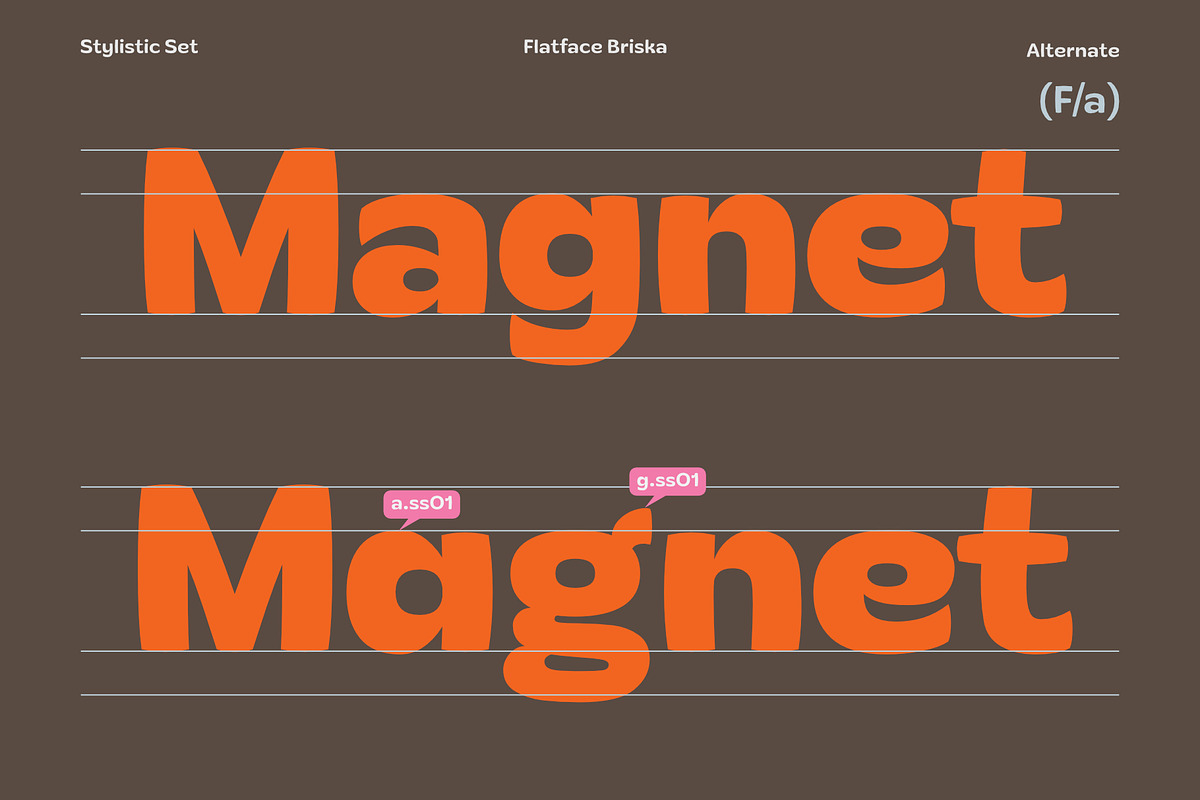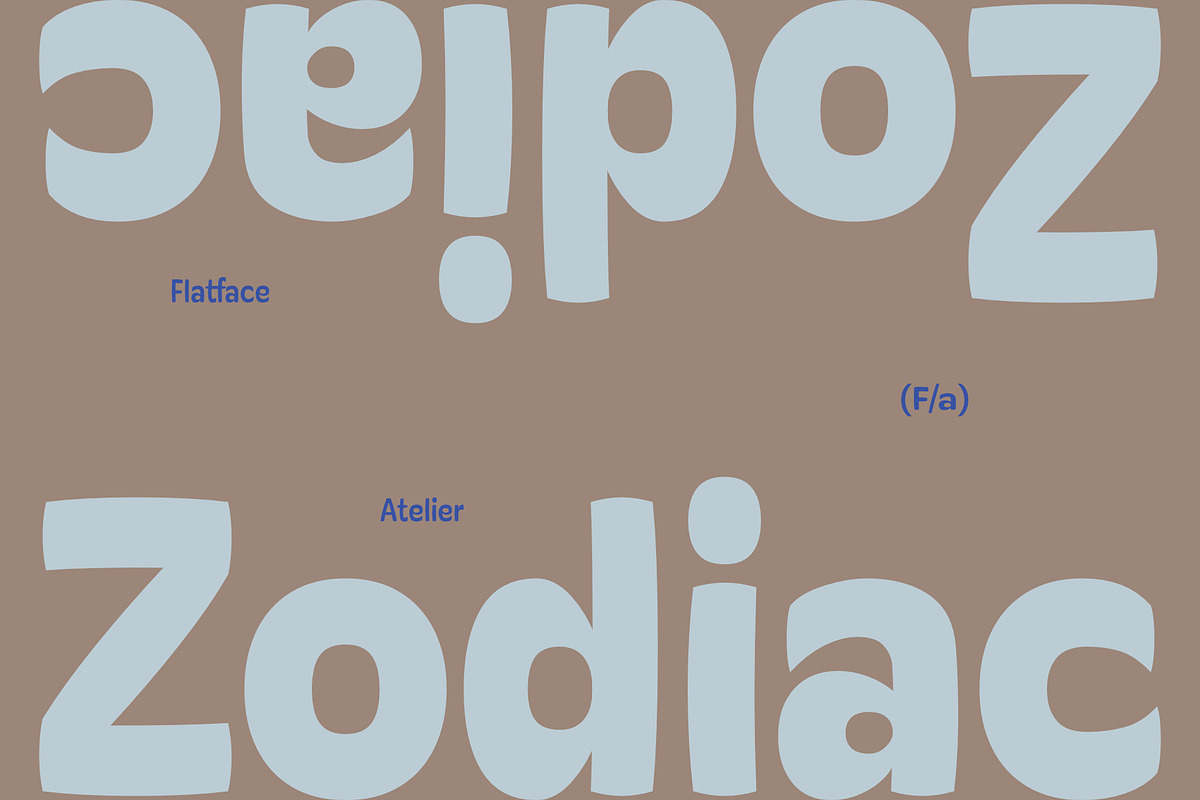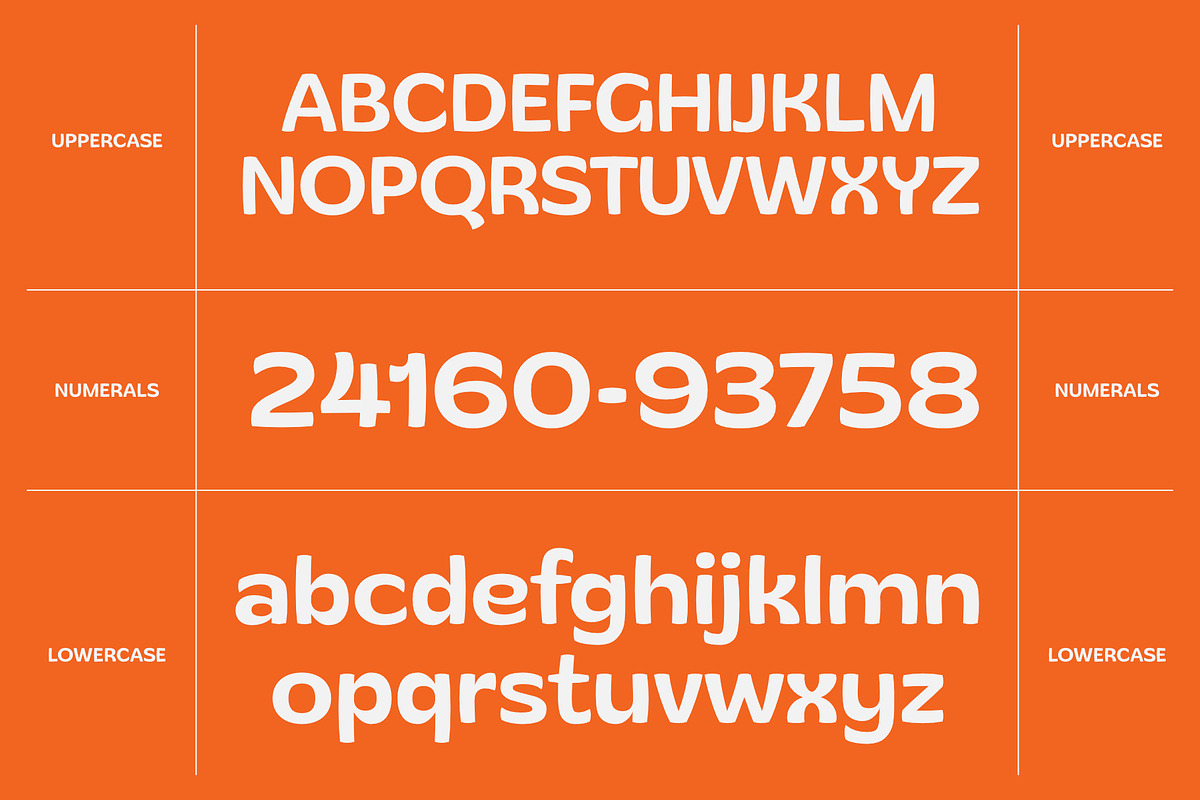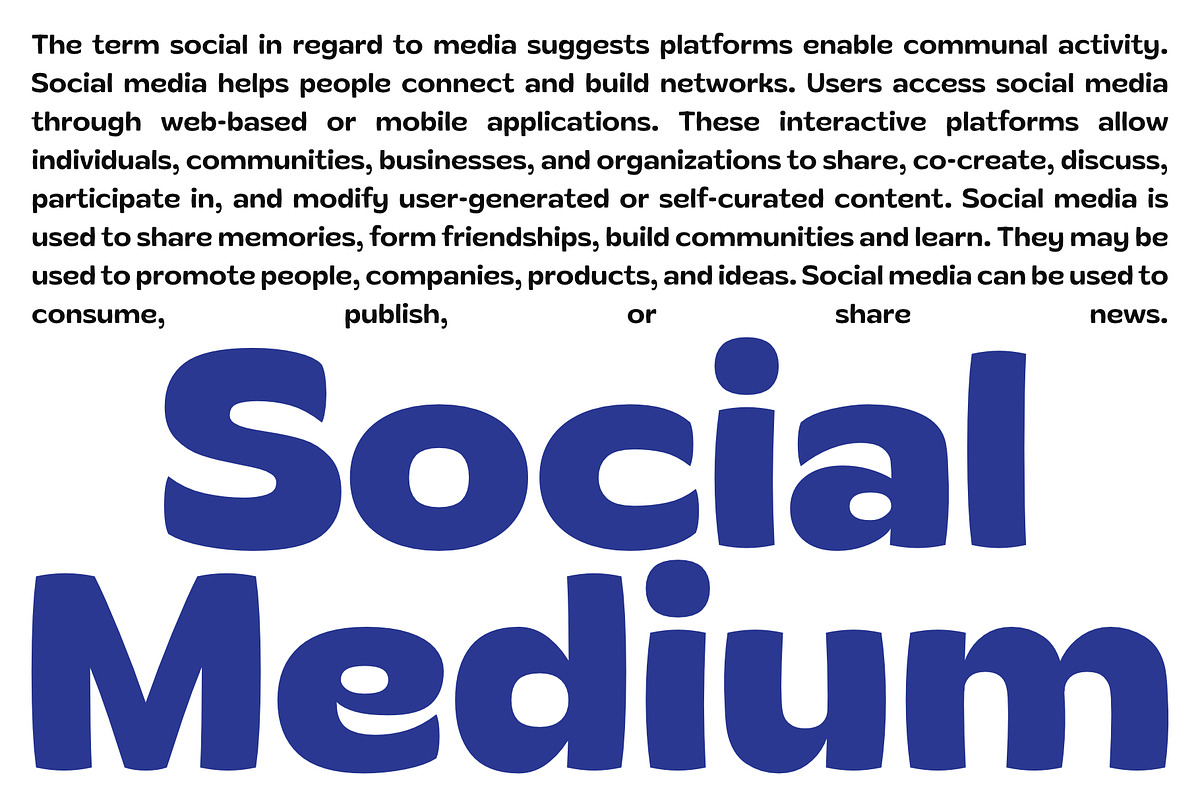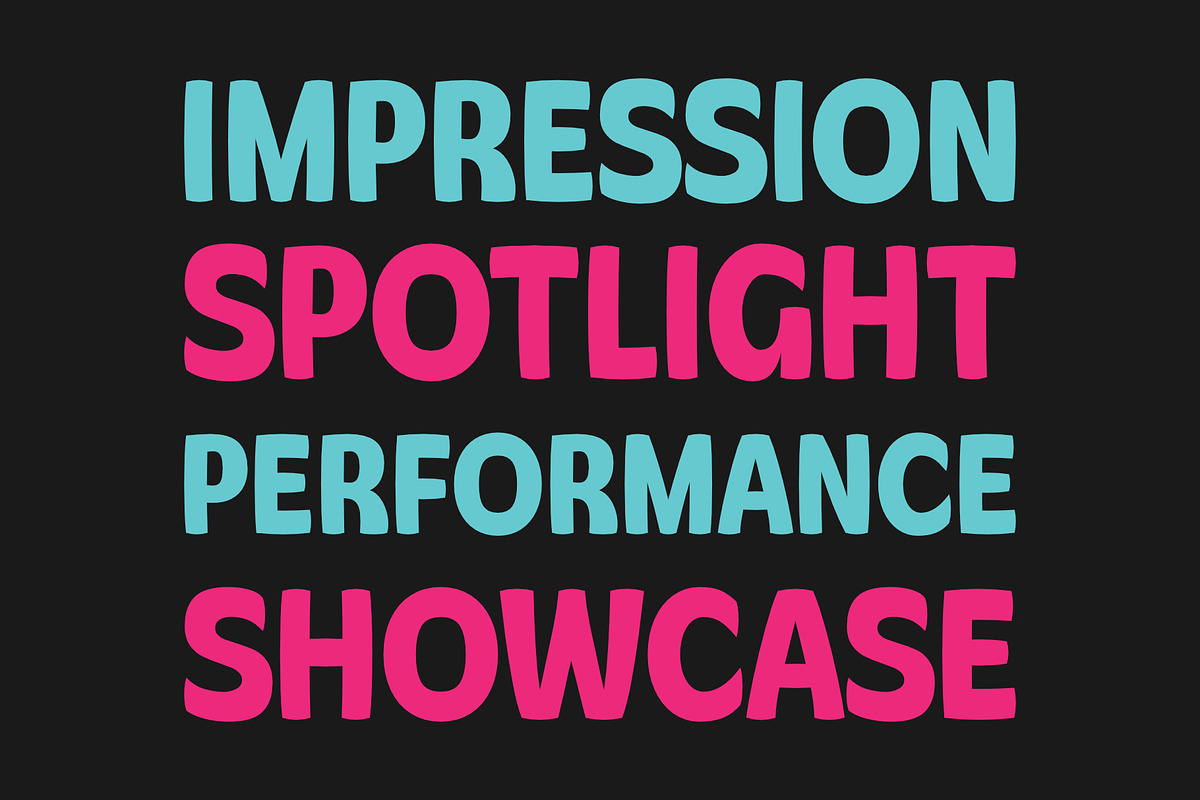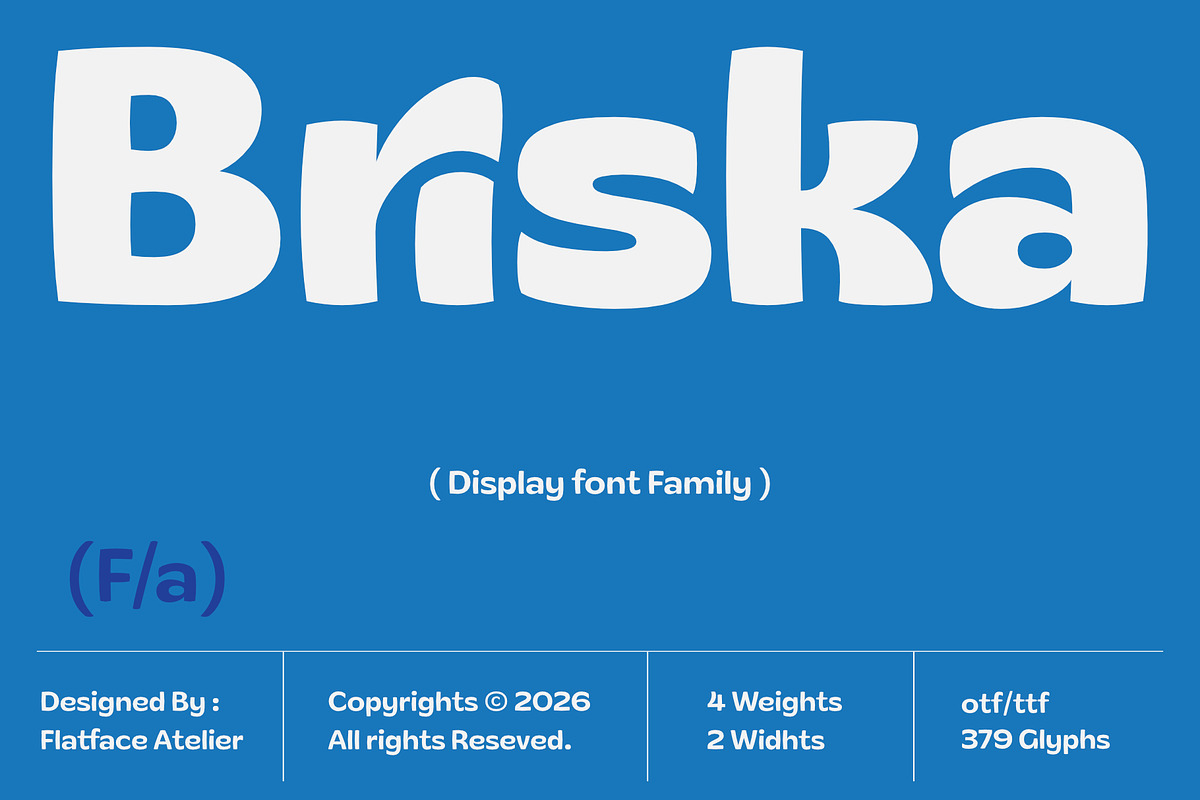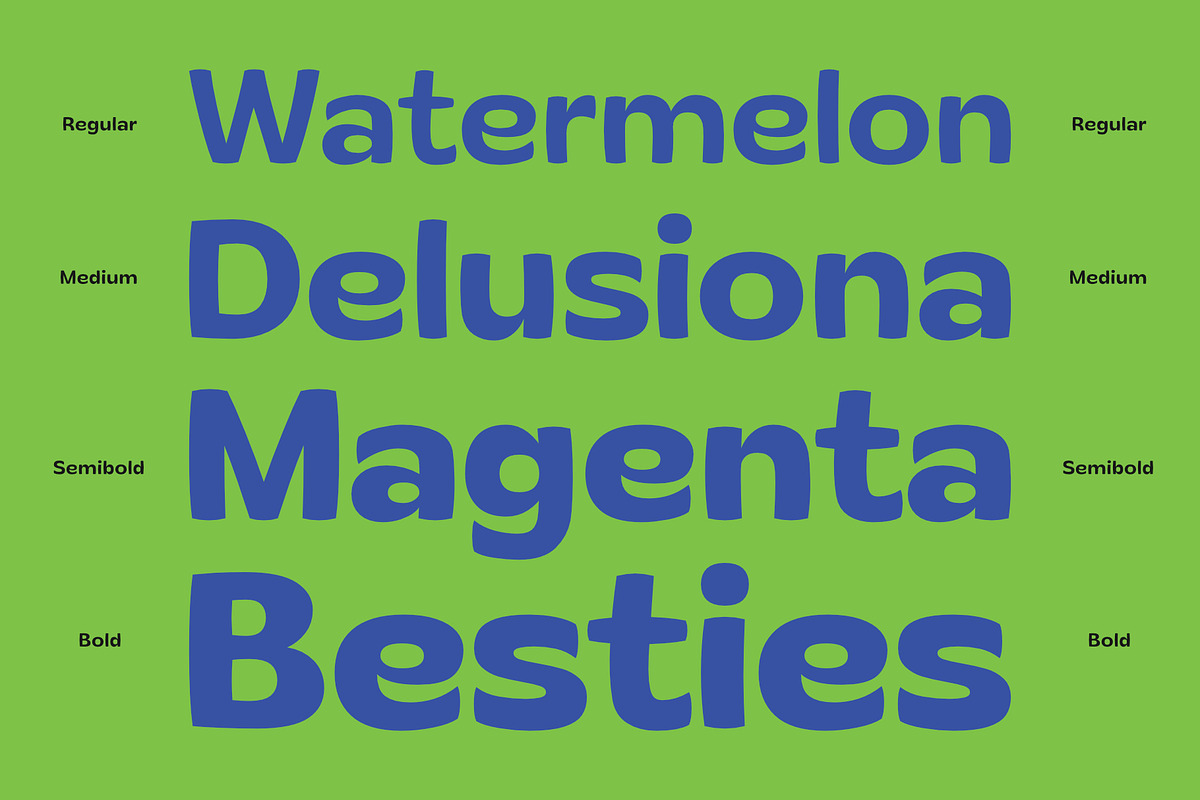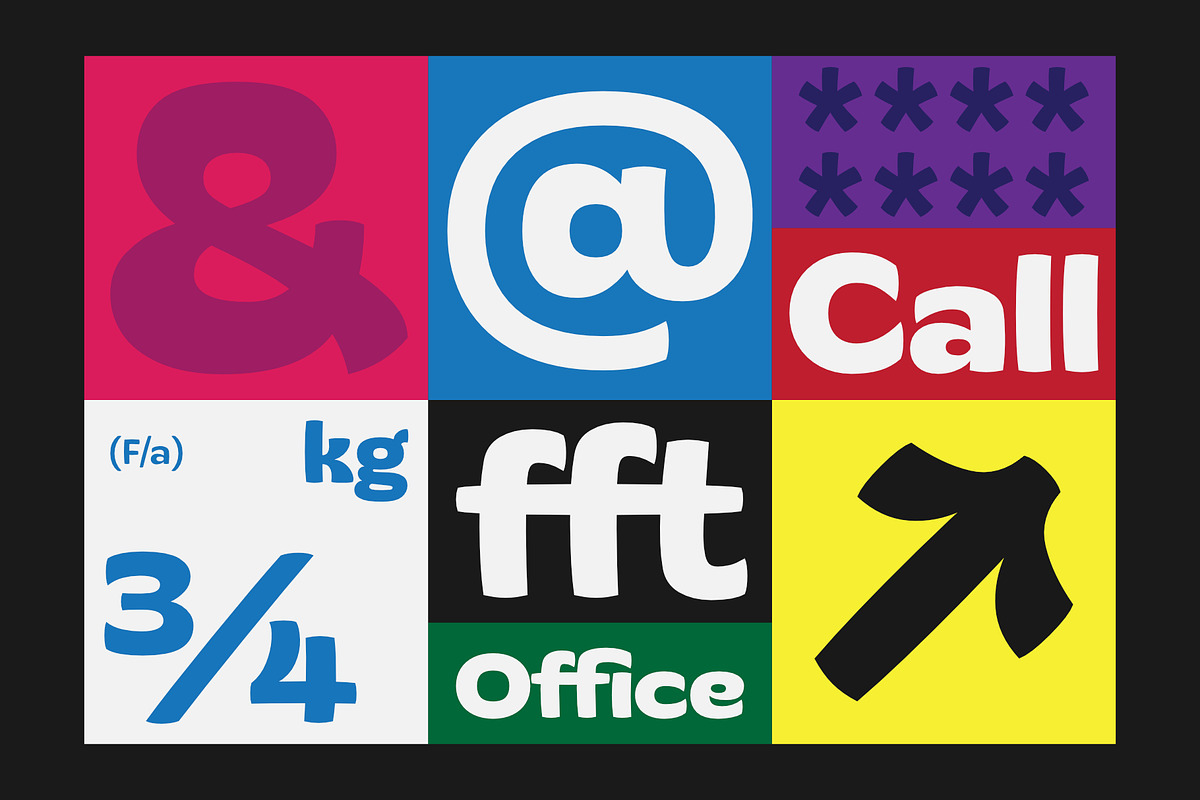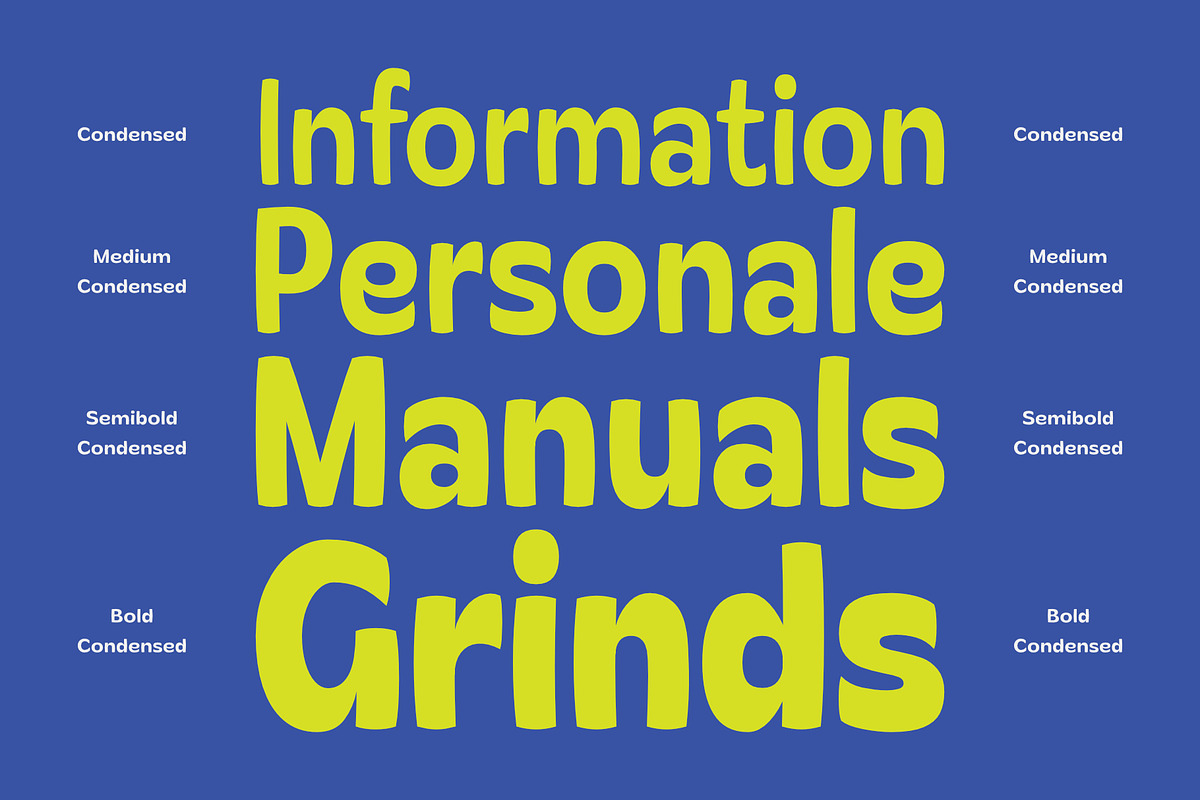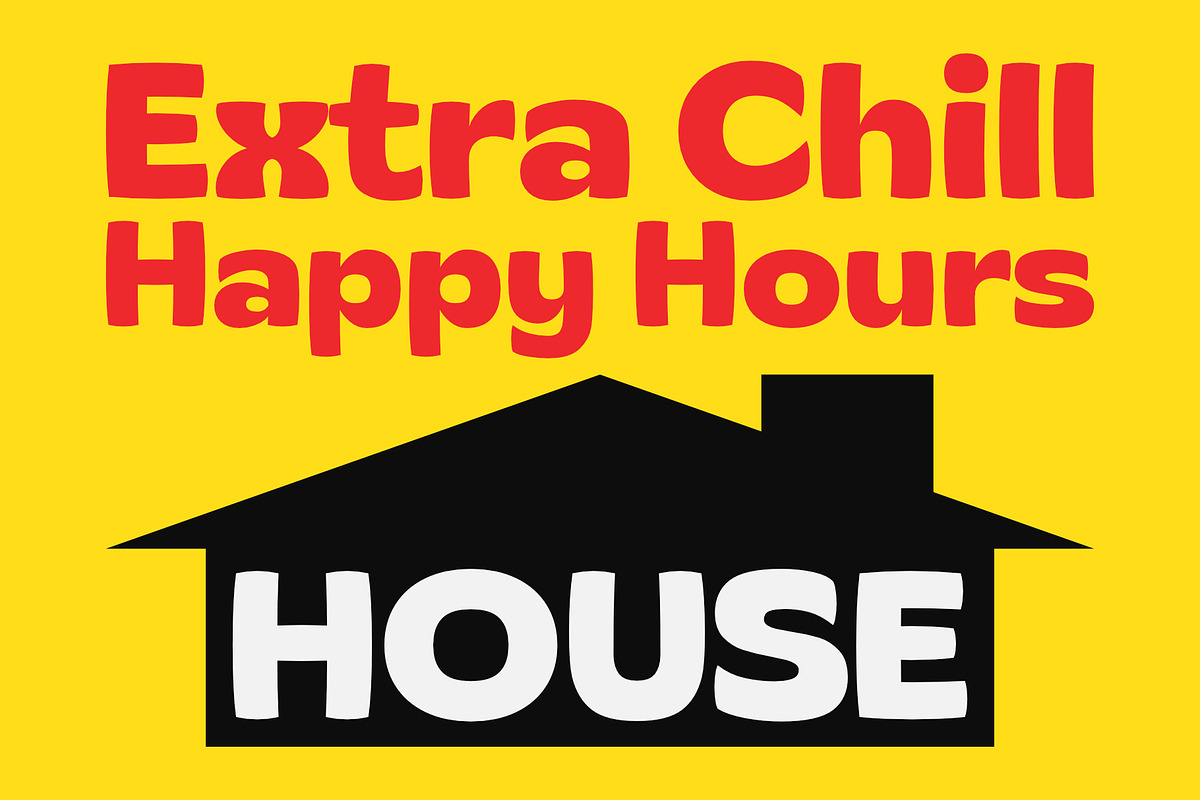
Flatface Briska is a san serif display font inspired by typography poster who have characteristic Chunky playful, bold, charm, solid but still looking fun to read.
The characteristic of the Flatface Briska is a san serif font that convex at the edges and wider than usual, to make it looks fun that makes your designs stand out
Flatface Briska is perfect for eye-catching headlines, posters, product packaging, branding, and social media graphics. Whether you're going for bold impact or fun flair, this versatile typeface brings bold charm to any creative project.
Available on 4 weights ( Regular, Medium, Semibold, Bold ) and 2 Widths ( Condensed & Normal ) with total 8 Style Also available for 75+ Latin Language.